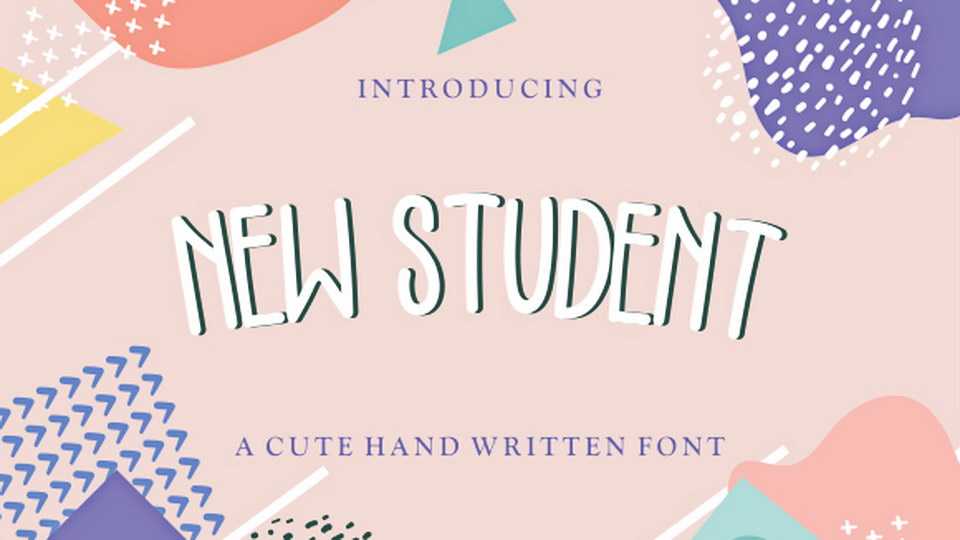
Download New Student font, a cute and playful handwritten typeface. New Stydent font also has a cartoonis style that good for sticker, poster and banner.